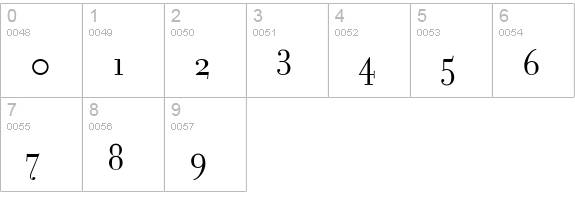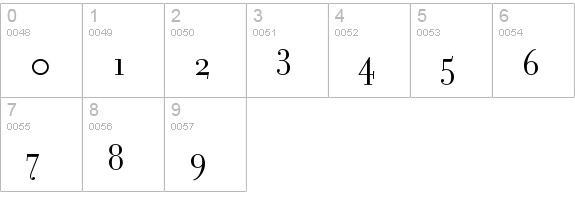
FilosofiaGrand is a stunning and elegant font that exudes sophistication and charm. With its exquisite design and timeless appeal, this font is perfect for adding a touch of class to any project. The delicate serifs and graceful curves of FilosofiaGrand make it a truly versatile typeface that can be used for a wide range of applications, from branding to editorial design. What sets FilosofiaGrand apart is not only its beauty but also its accessibility. This font is available for free download at FontsMarket.com, making it easy for designers and creatives to incorporate its refined aesthetic into their work without breaking the bank. Whether you're working on a wedding invitation, a logo design, or a magazine layout, FilosofiaGrand is sure to elevate your project and leave a lasting impression. Download this exquisite font today and let its timeless elegance inspire your creativity.